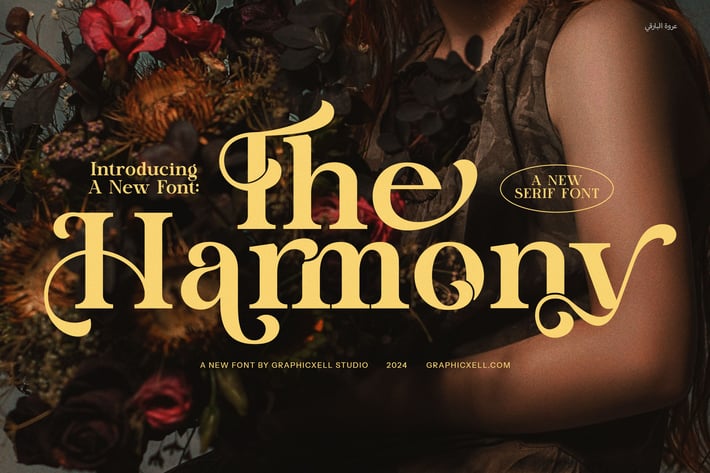
The Harmony Elegant Serif Font
The HarmonyElegant Serif Font is a modern masterpiece of typography that embodies sophistication and creativity. With its sleek design and refined curves, this serif font brings a perfect balance of contemporary elegance and timeless appeal. Its unique ligatures and alternate letterforms add a touch of artistry, giving your designs an exclusive and customized feel.
Ideal for projects that demand a premium look, The Harmony is perfect for logos, branding, and high-end visual identities. Its versatility allows it to shine across a wide range of applications, from stylish websites and polished magazine layouts to product packaging, advertisements, and boutique branding. The font’s graceful structure and effortless readability make it equally suitable for both bold headlines and elegantly crafted body text.
The Harmony elegant charm makes it particularly well-suited for industries like fashion, luxury goods, hospitality, and gourmet food. Whether you're creating a sophisticated logo, designing a chic invitation, or curating an editorial masterpiece, this font ensures your work stands out with poise and confidence.
The beautiful alternates and ligatures in The HarmonyElegant Serif Font provide endless opportunities to personalize your designs, making it a favorite among creatives seeking a unique yet professional aesthetic. It pairs beautifully with minimalist layouts, delicate color palettes, and modern design trends, enhancing the overall impact of your projects.
Let The Harmony Elegant Serif Font bring a touch of luxury and refinement to your work. With its modern sophistication and artistic details, it’s a typeface that speaks to creativity and class in every stroke.
Ideal for projects that demand a premium look, The Harmony is perfect for logos, branding, and high-end visual identities. Its versatility allows it to shine across a wide range of applications, from stylish websites and polished magazine layouts to product packaging, advertisements, and boutique branding. The font’s graceful structure and effortless readability make it equally suitable for both bold headlines and elegantly crafted body text.
The Harmony elegant charm makes it particularly well-suited for industries like fashion, luxury goods, hospitality, and gourmet food. Whether you're creating a sophisticated logo, designing a chic invitation, or curating an editorial masterpiece, this font ensures your work stands out with poise and confidence.
The beautiful alternates and ligatures in The HarmonyElegant Serif Font provide endless opportunities to personalize your designs, making it a favorite among creatives seeking a unique yet professional aesthetic. It pairs beautifully with minimalist layouts, delicate color palettes, and modern design trends, enhancing the overall impact of your projects.
Let The Harmony Elegant Serif Font bring a touch of luxury and refinement to your work. With its modern sophistication and artistic details, it’s a typeface that speaks to creativity and class in every stroke.